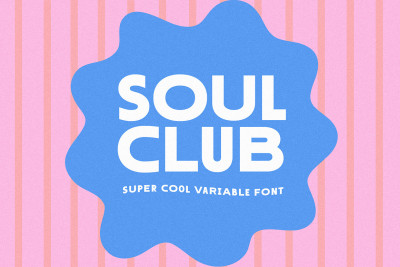
Soul Club | Trendy Sans Font
Soul Club | Trendy Sans stands out as a reliable typeface choice for designers seeking clarity without sacrificing character.